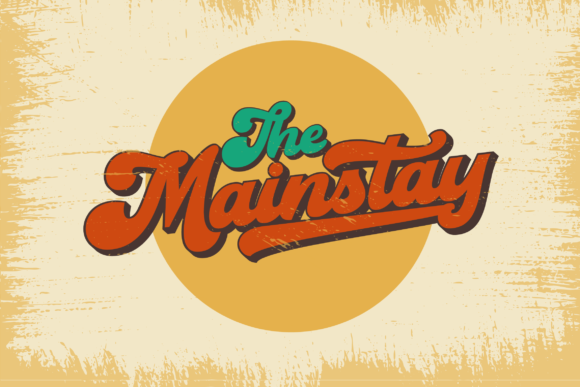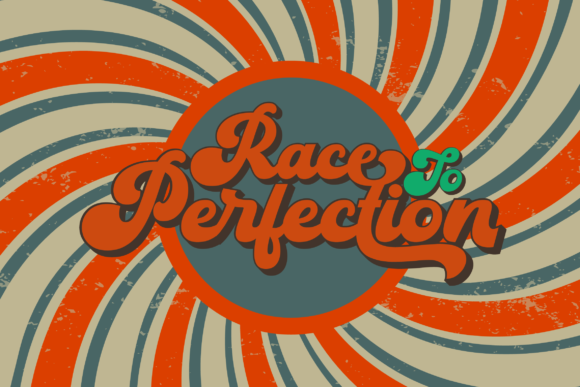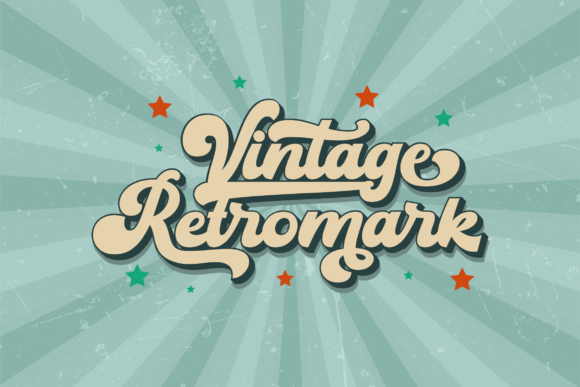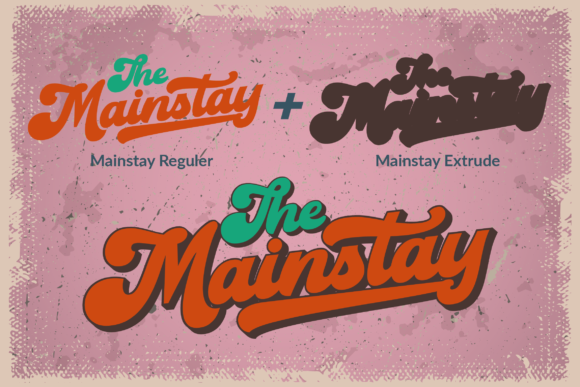
About The Mainstay Font
The Mainstay is a bold and retro styled handwritten font. This font reads as strong, confident, and dynamic and can add tons of nostalgic character to your designs.